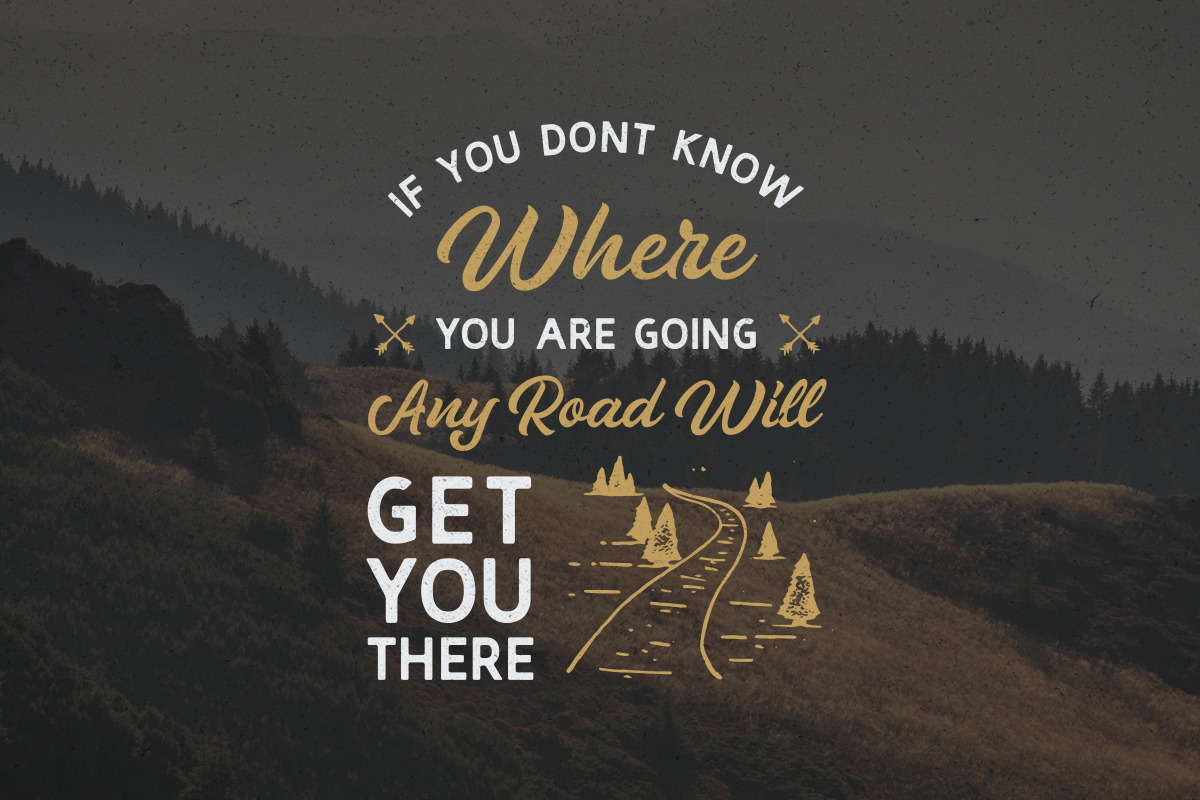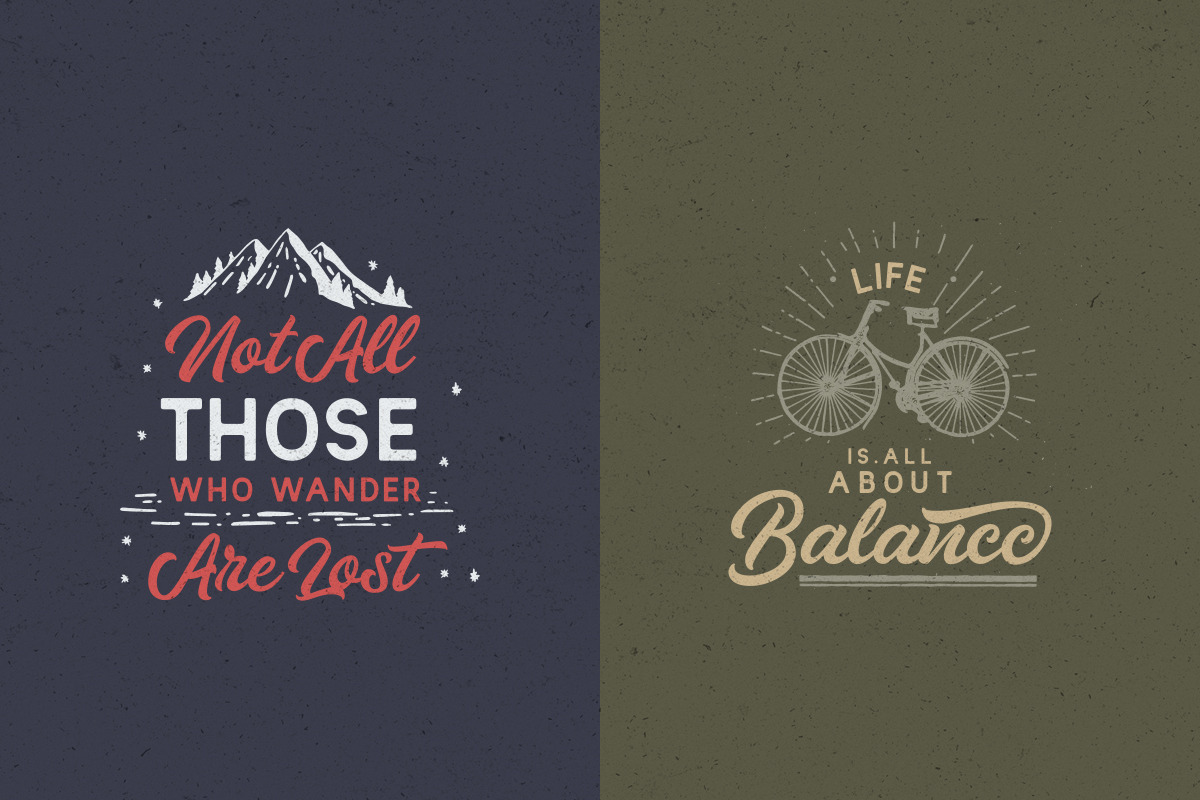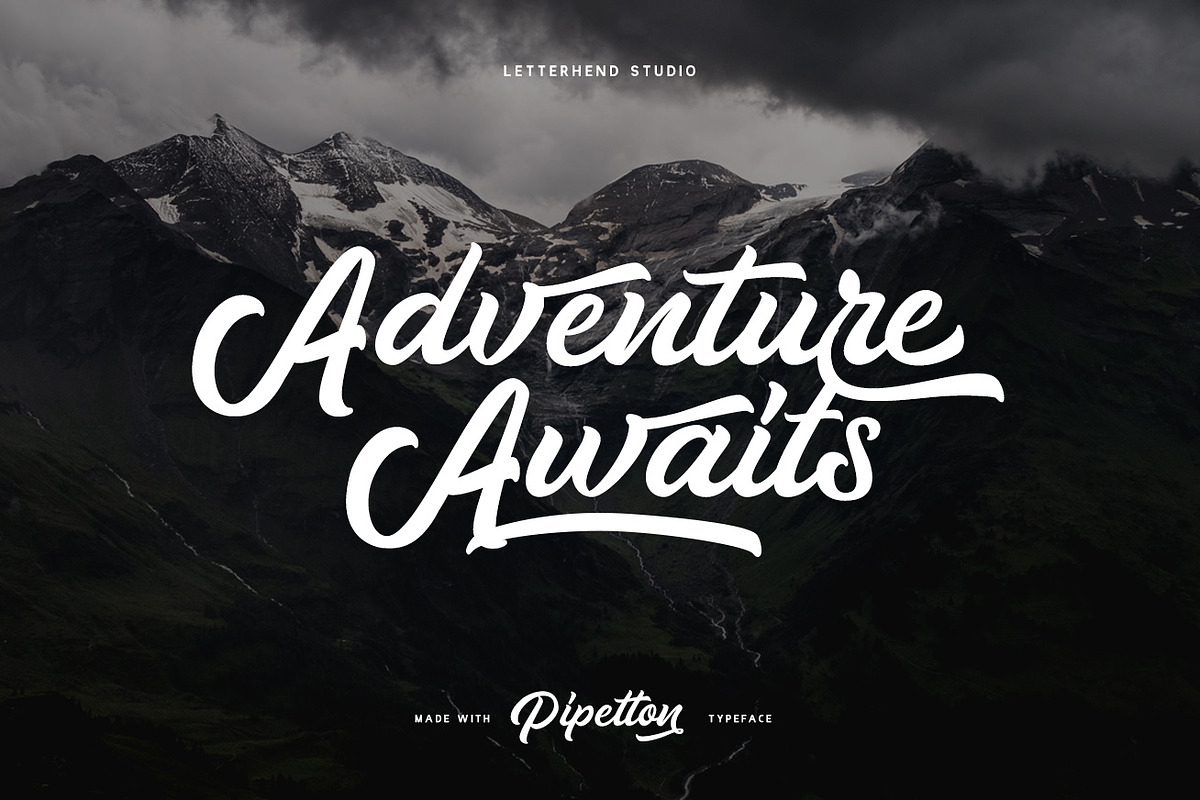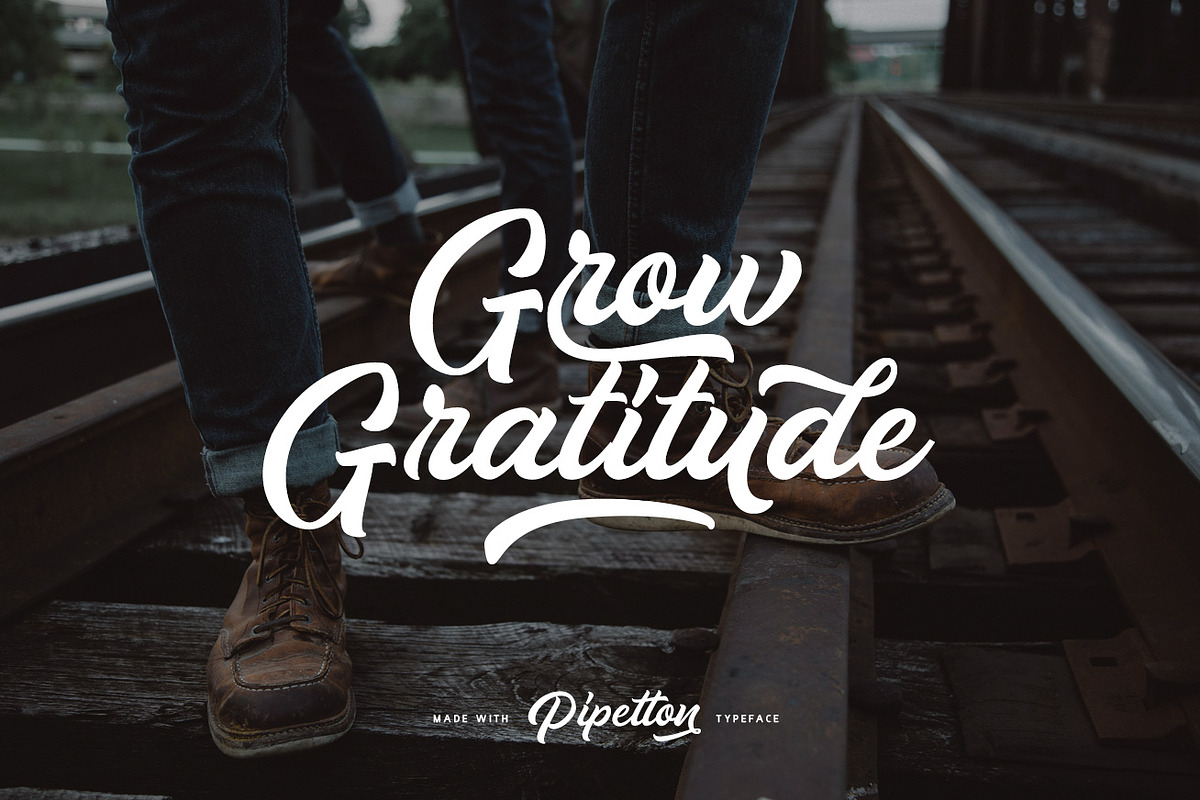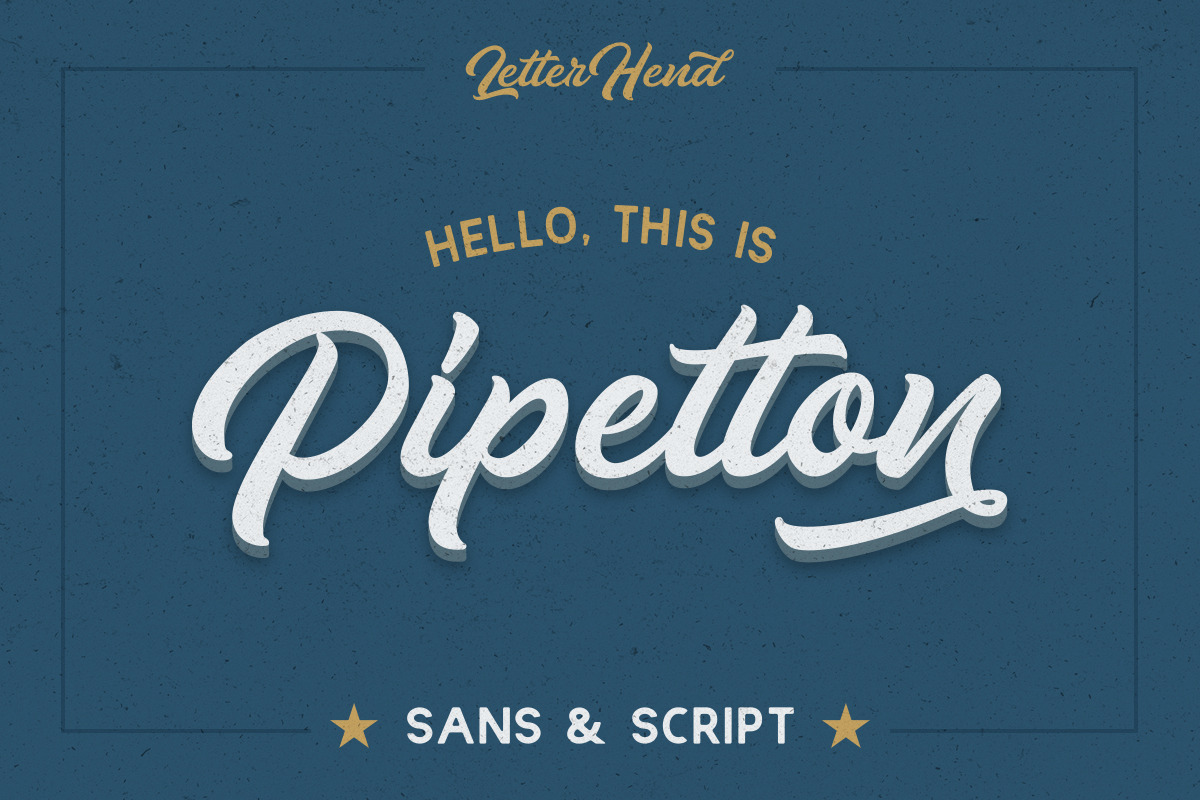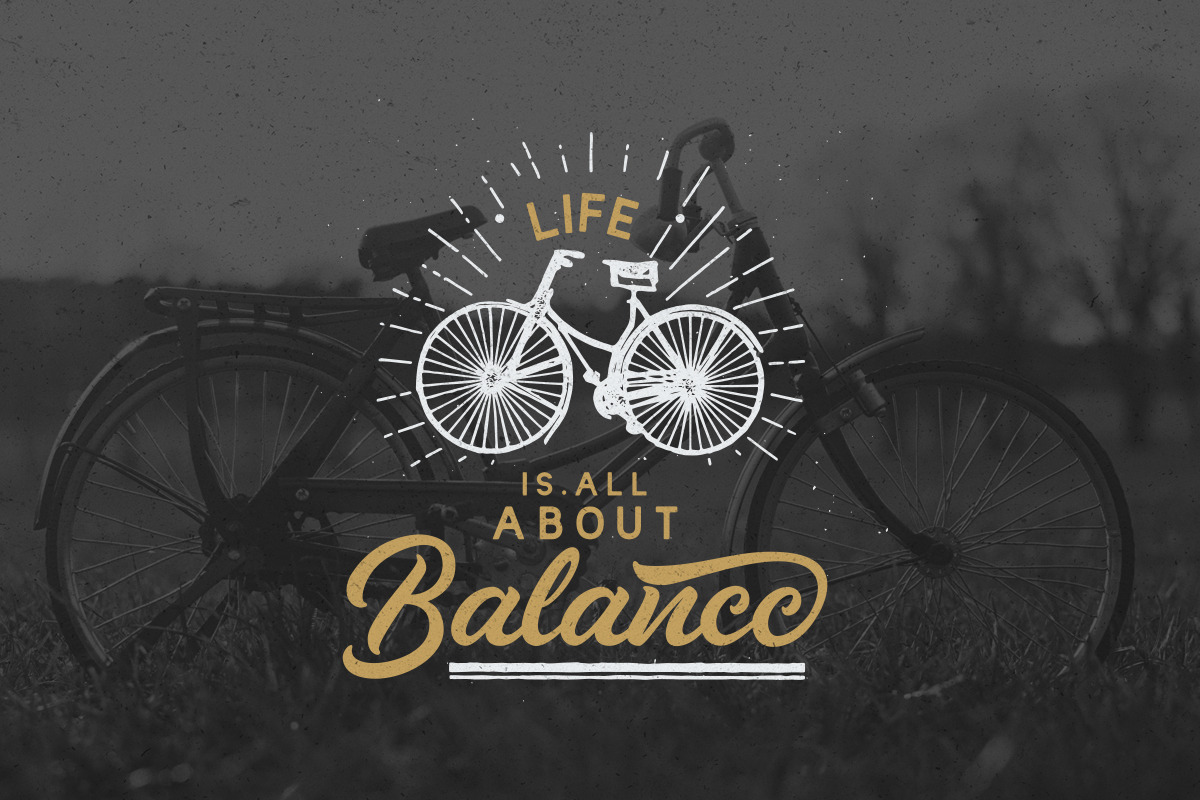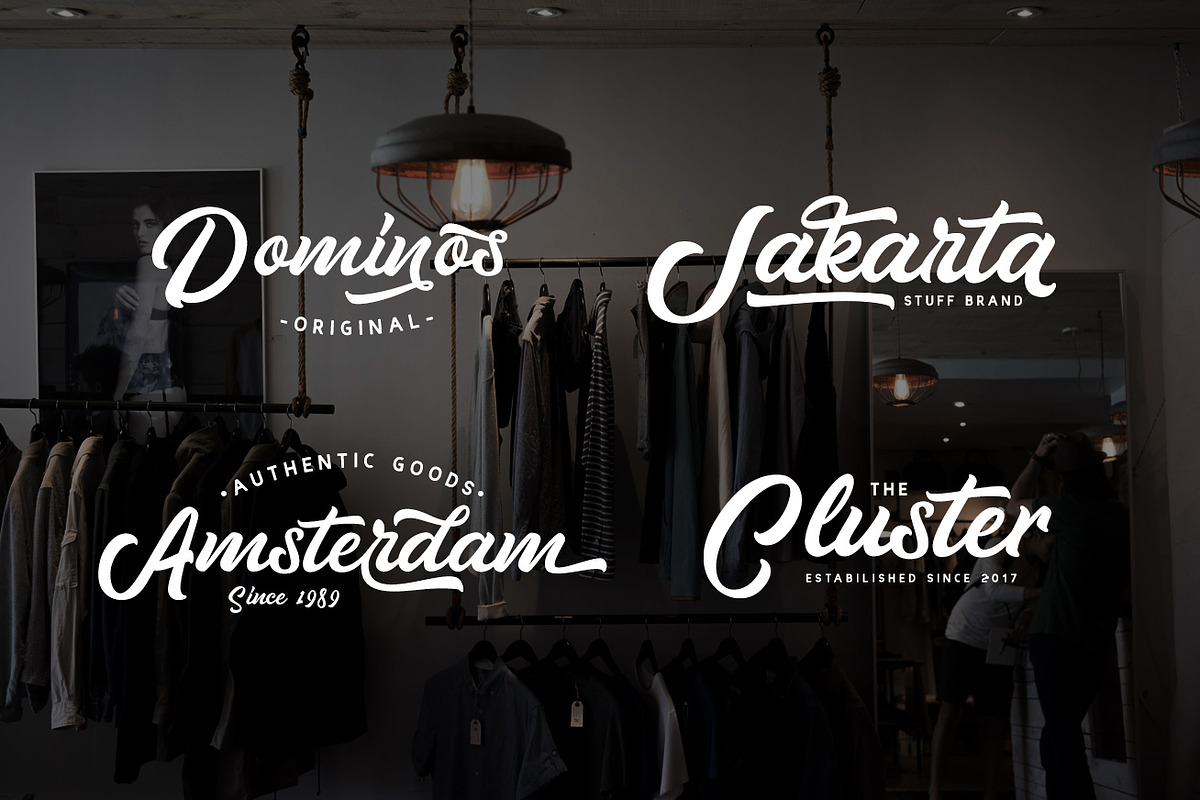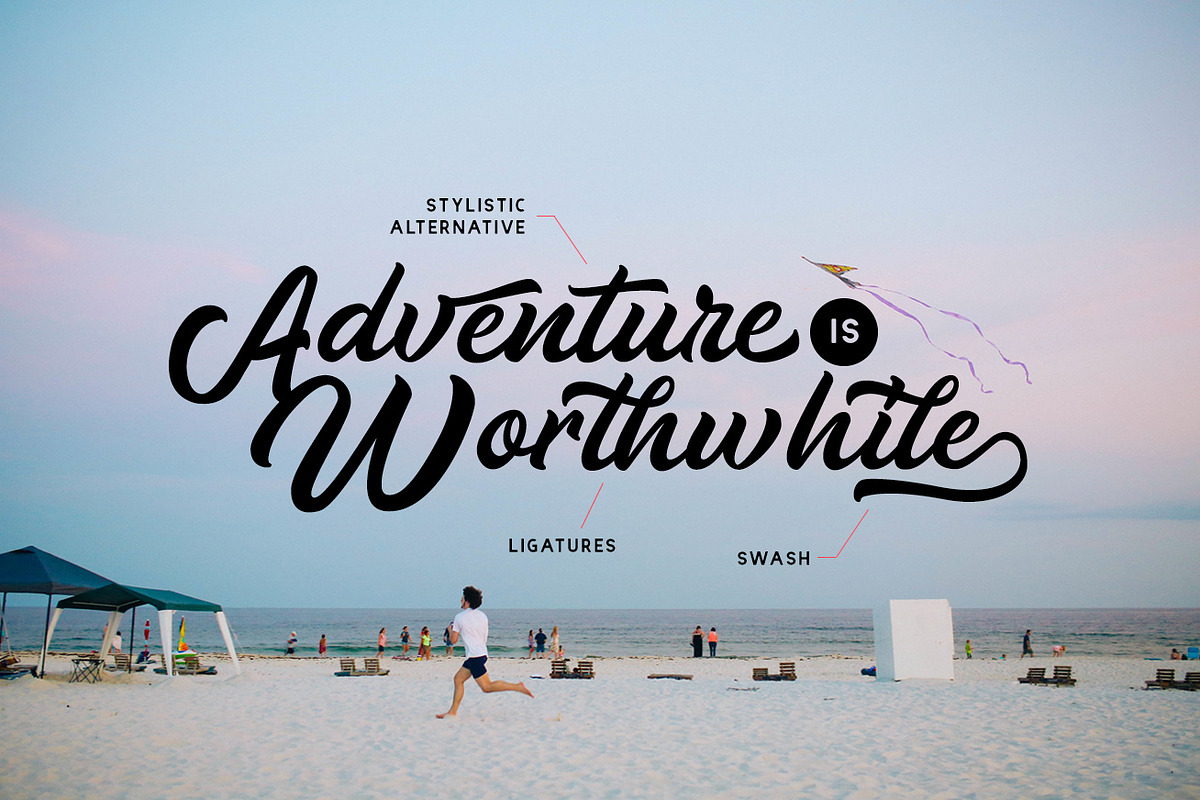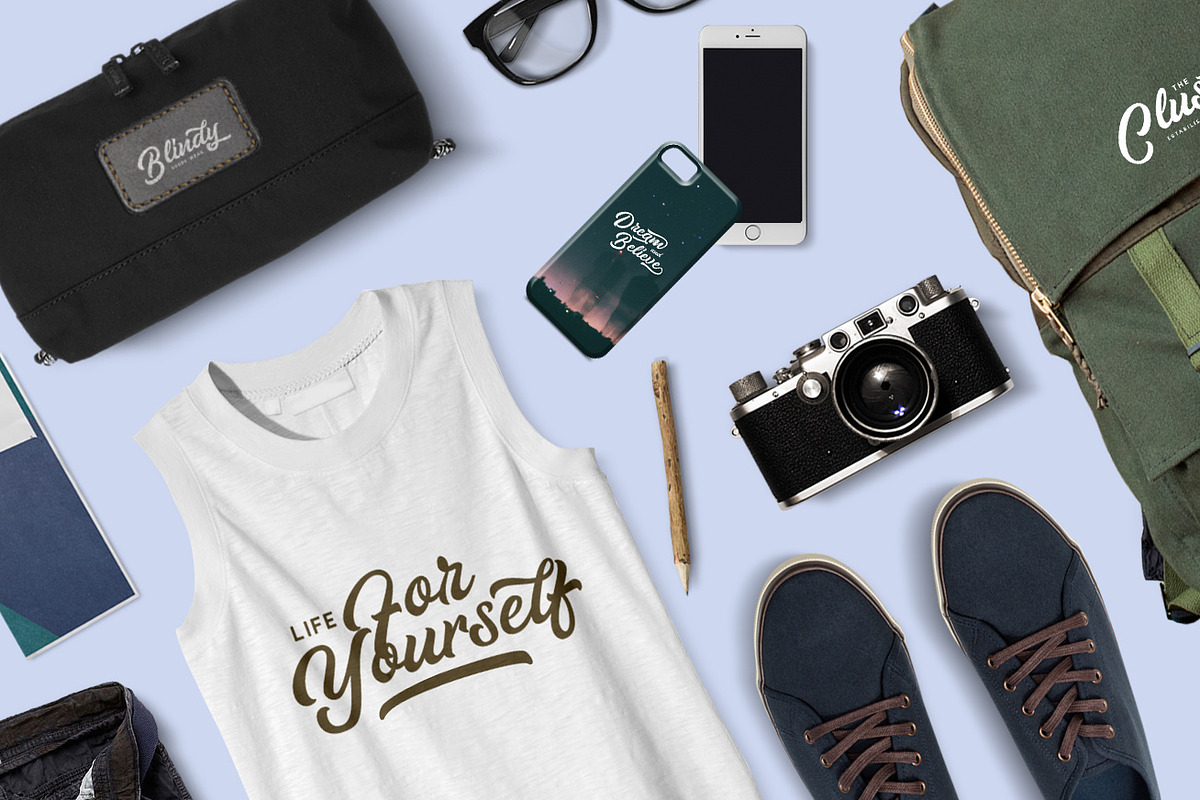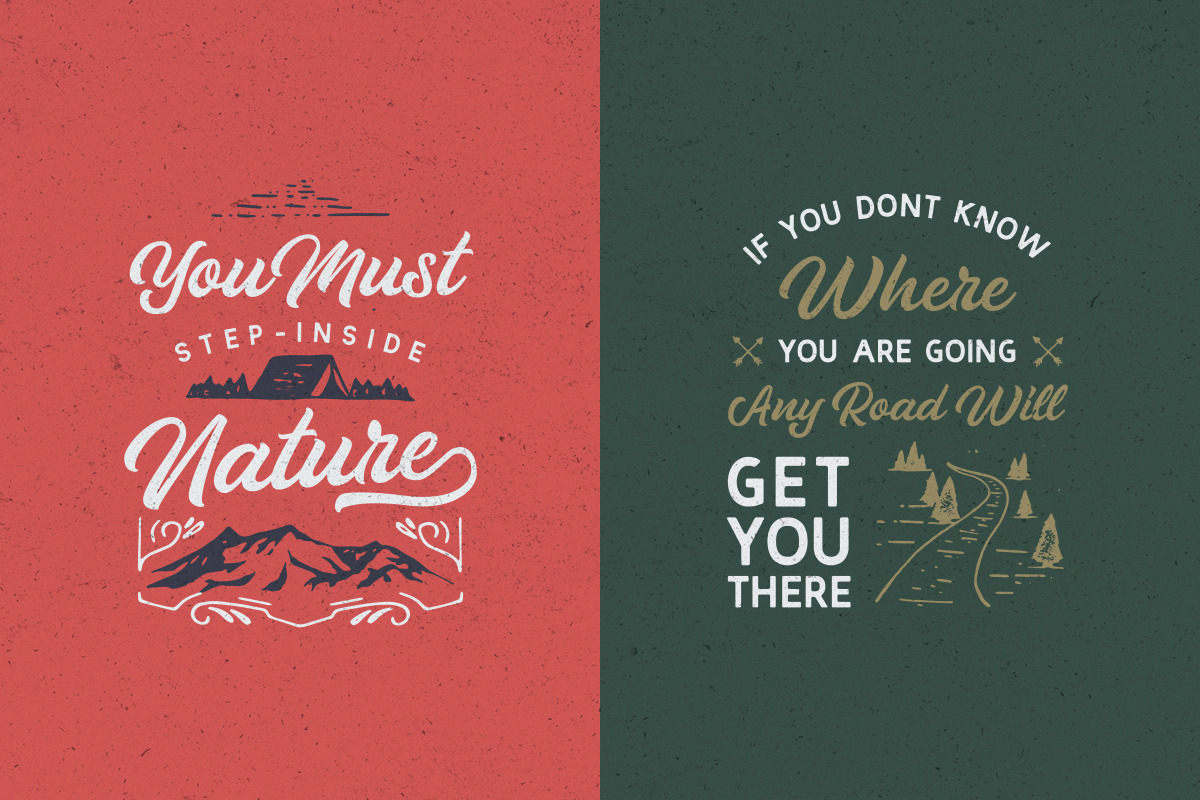
Pipetton Font Duo
Introducing our new font duo called Pipetton. This typeface consist of two fonts, the main script font and complementary sans font which is perfectly matched. This font is suitable to use as a logotype / wordmark / label, etc with its unique and bold characters makes it stand out from the crowd. This font is comes in uppercase, lowercase, punctuations, symbols & numerals, stylistic set alternate, ligatures, and swashes.